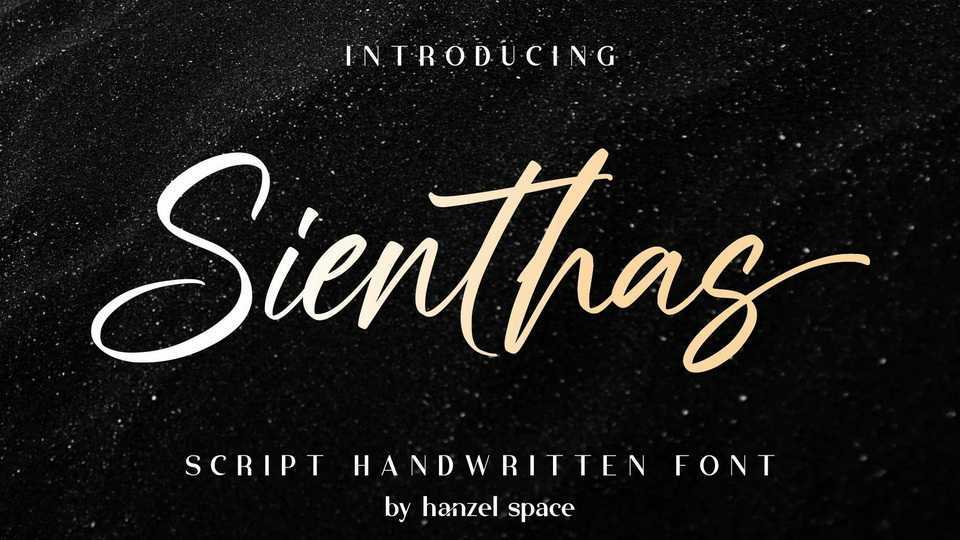
Download Sienthas Script font, a handwritten typeface with contemporary, sophisticated accents. Sienthas Script is perfect for branding, wedding invites, tagline, cards, maybe for label and logo.